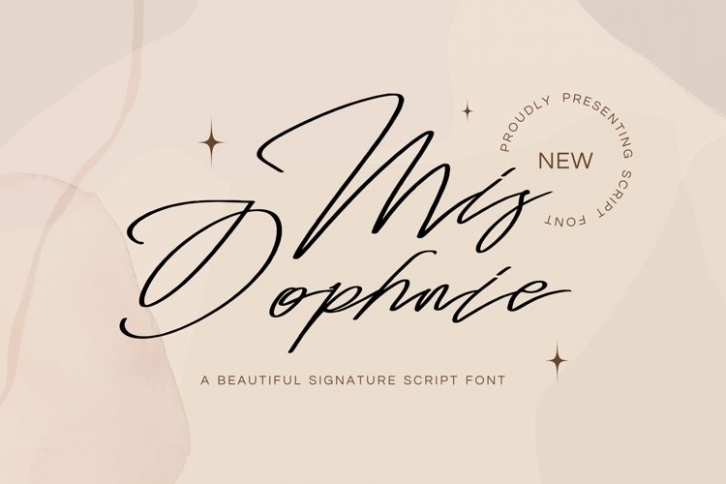
Mis Dophnie is a trendy and unique font with an authentic style. It was designed by plusstore and it's a great choice for creative people who need such a font. It was released on August 1, 2021 and the file size is 11.49 MB. Mis Dophnie will add an organic vibe to any design idea!